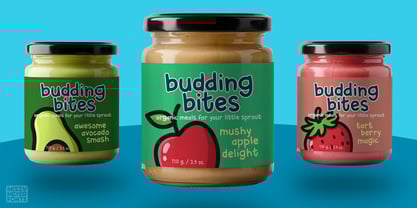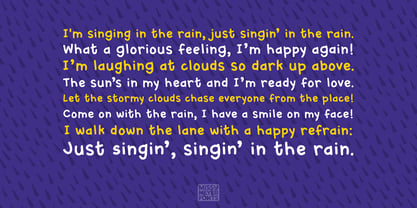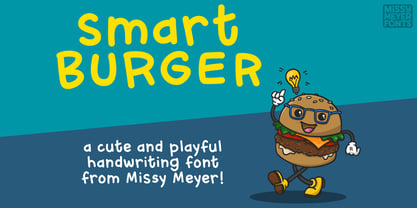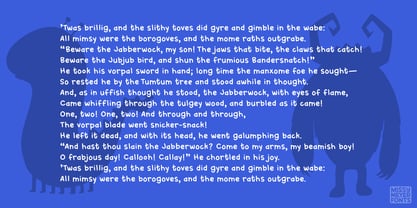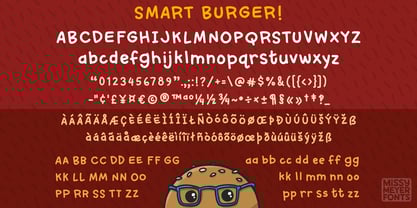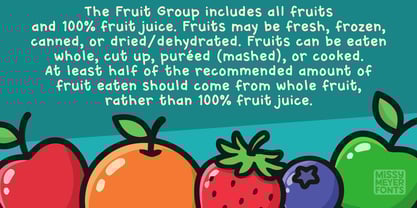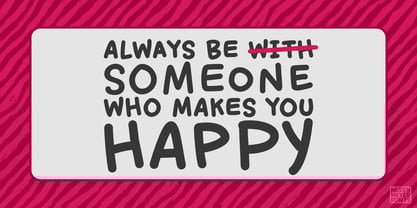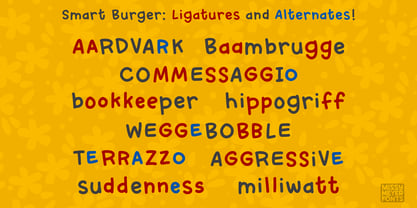
Smart Burger
by Missy Meyer
The Smart Burger Font Family was designed by Missy Meyer and published by Missy Meyer. Smart Burger contains 1 styles.
I tend to usually make handwriting fonts that are taller and narrower, so I wanted to add a wider and shorter one to the family. Smart Burger is a casual handwriting font with both uppercase and lowercase; a bit on the squatty side, with wide spacing and an almost childlike feel.
It's smoothed for cutting and stylish for print. This is a font that can do it all: logos and branding, packaging, fun designs on shirts or mugs, digital designs, social media, book titles, videos, games, you name it!
Smart Burger includes the full Basic Latin character set and the full Latin-1 Supplement set, plus additional characters so that it can support not only English, but a number of other languages including French, Spanish, Italian, German, Portuguese, and more!
It also contains 34 double-letter ligatures (17 uppercase, 17 lowercase) for the most common letters that happen twice in a row (A B C D E F G K L M N O P R S T Z), and separate glyphs for all of the alternate letters that I created for those. I love including these because they give a nice hand-written look!
Smart Burger